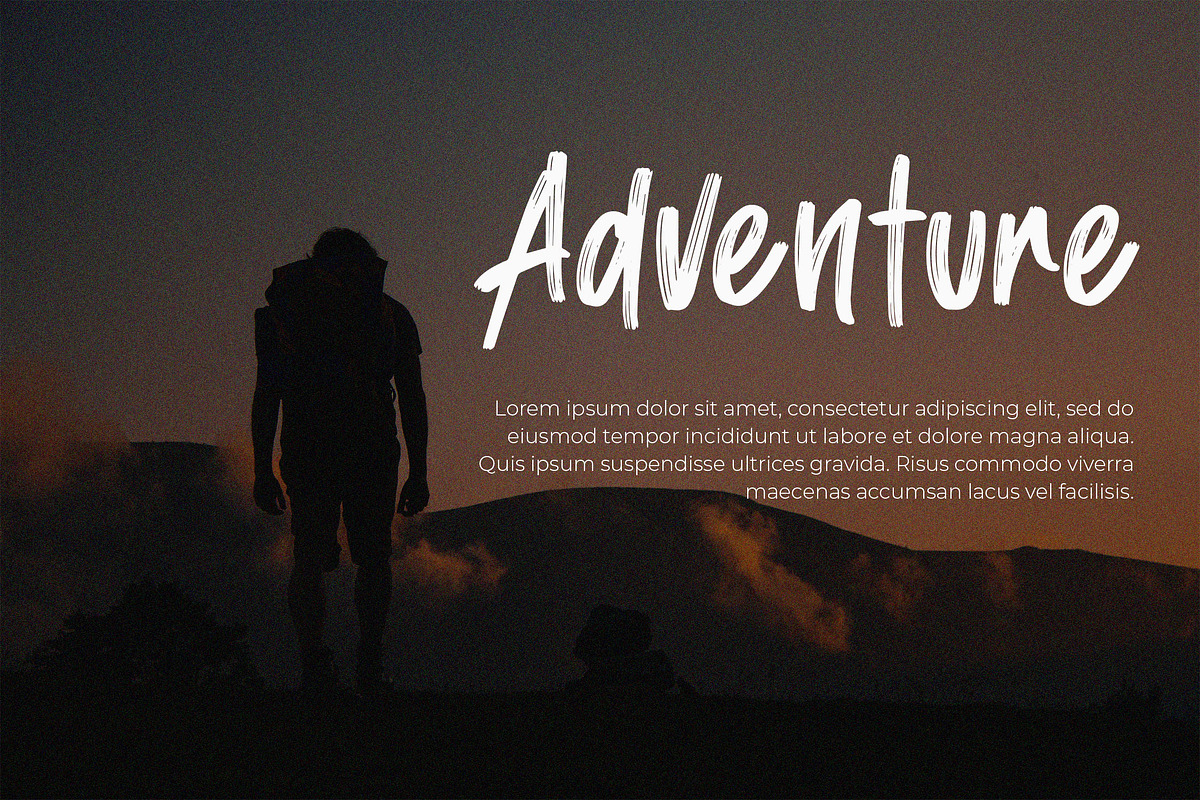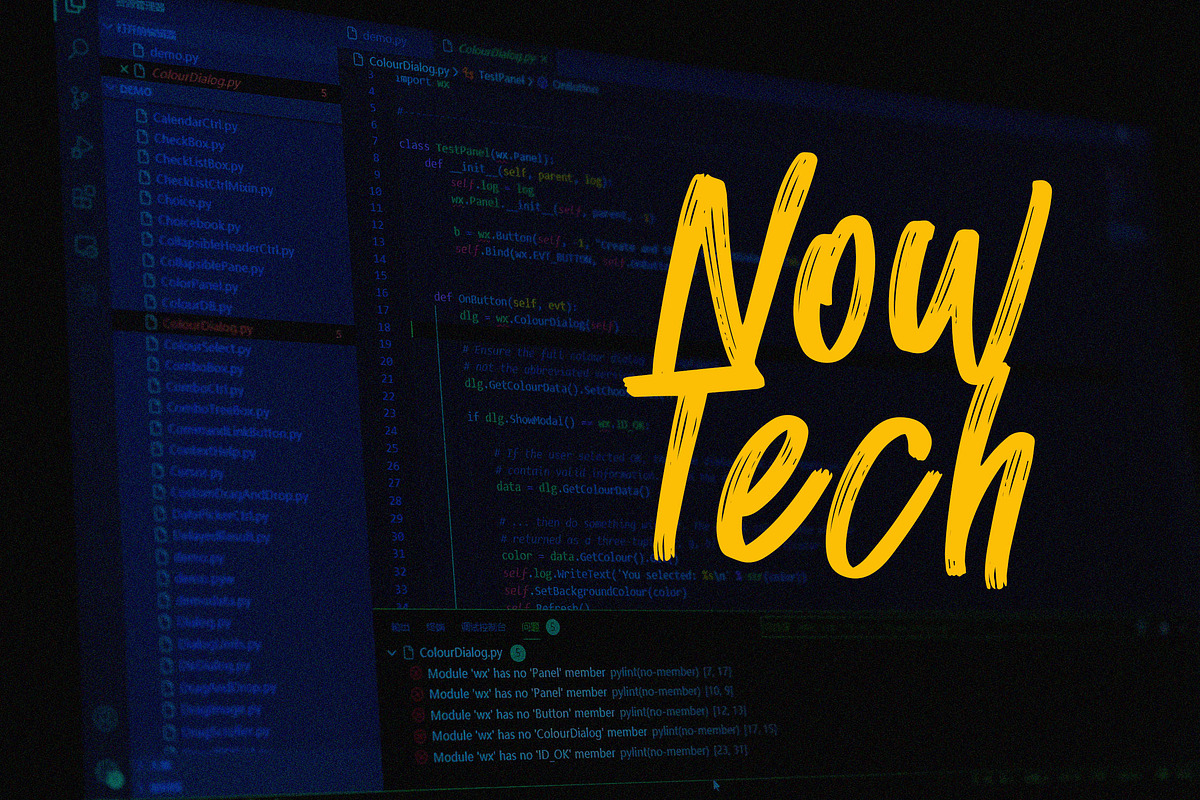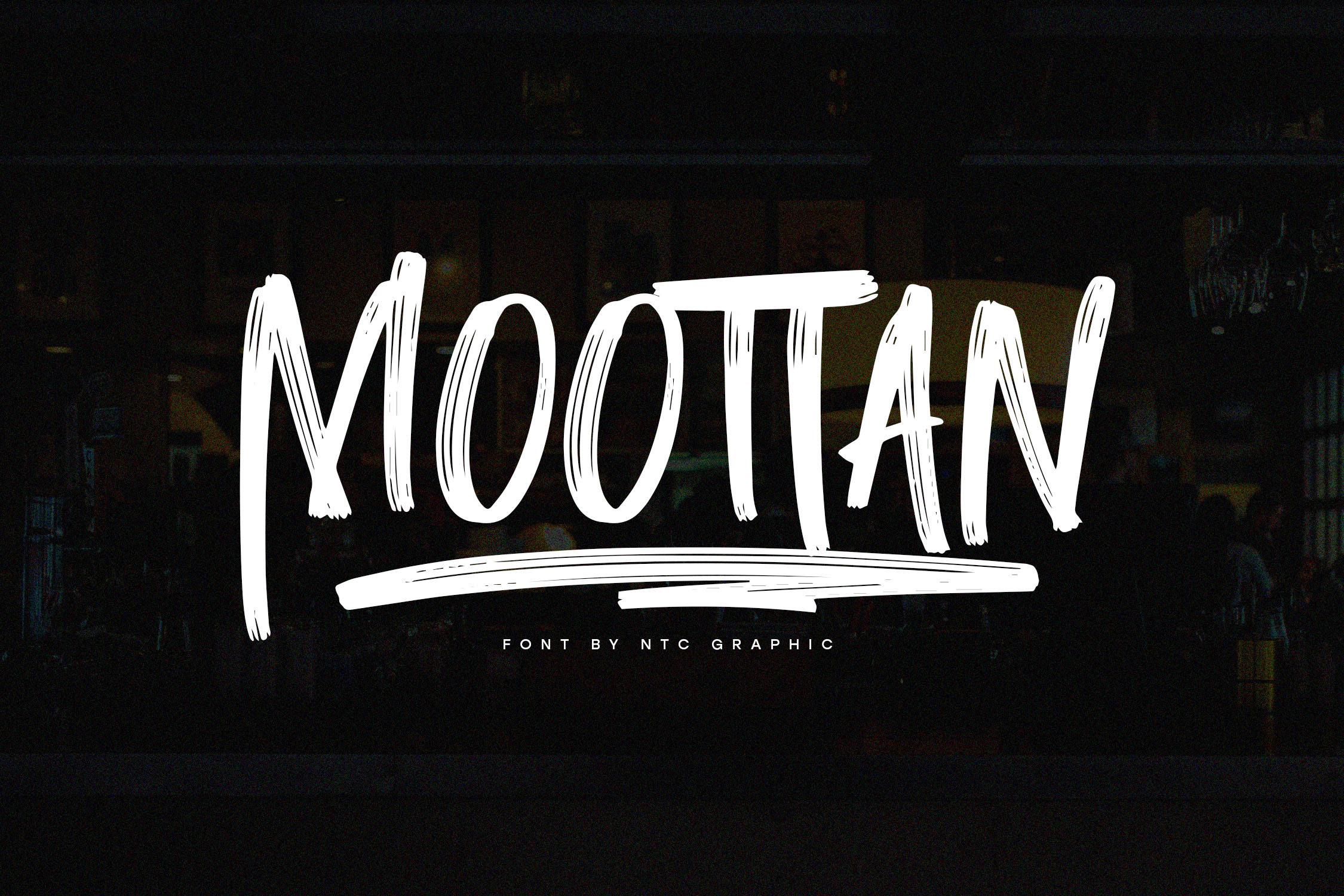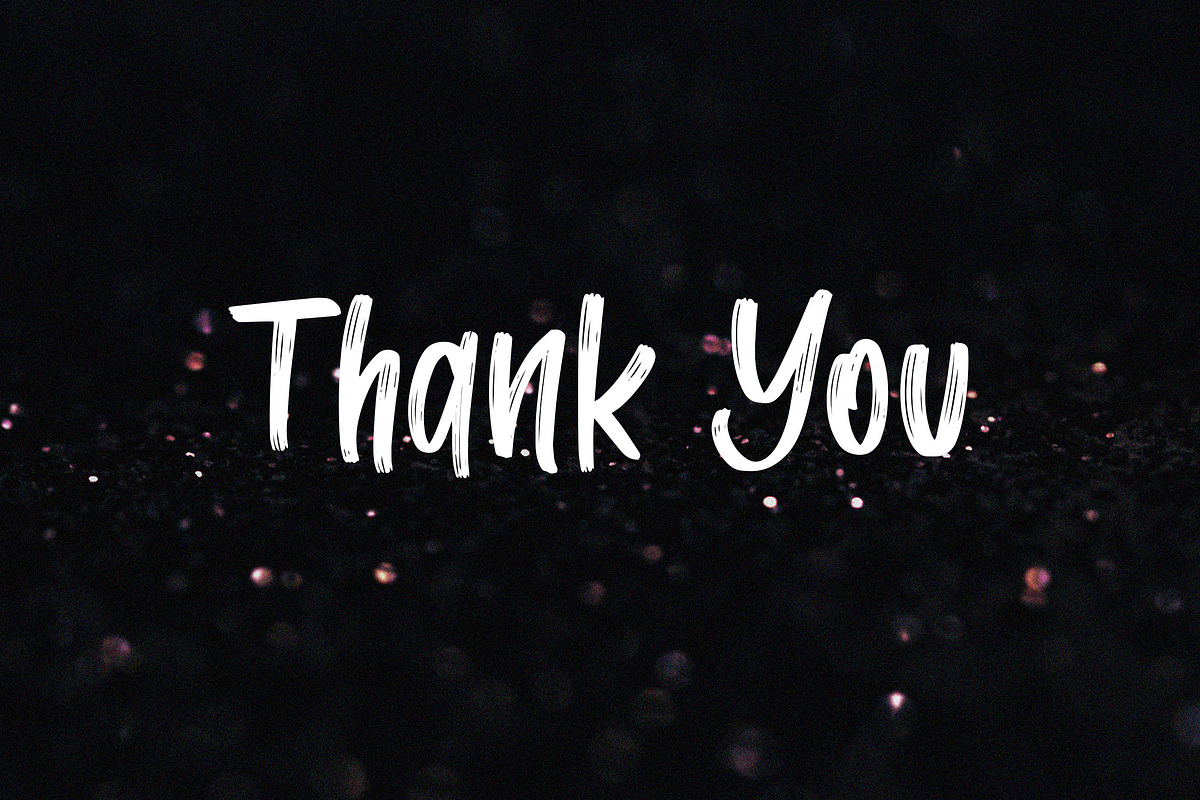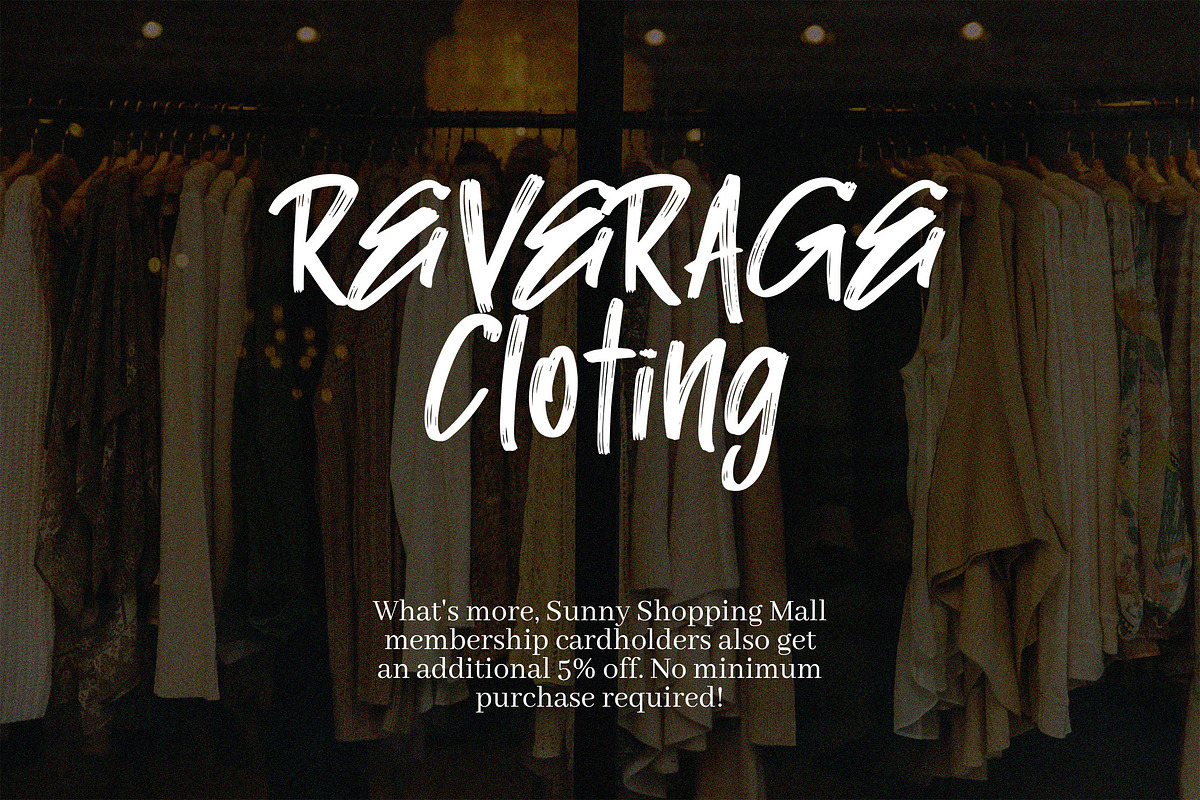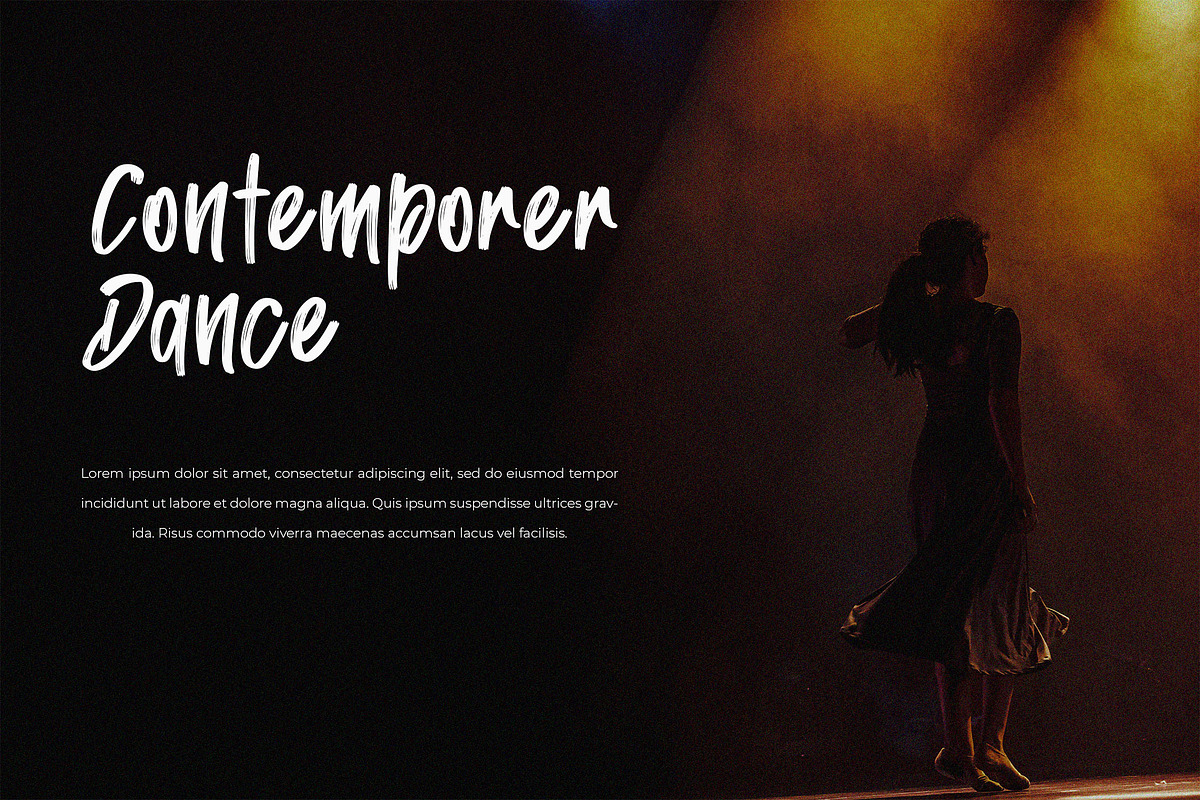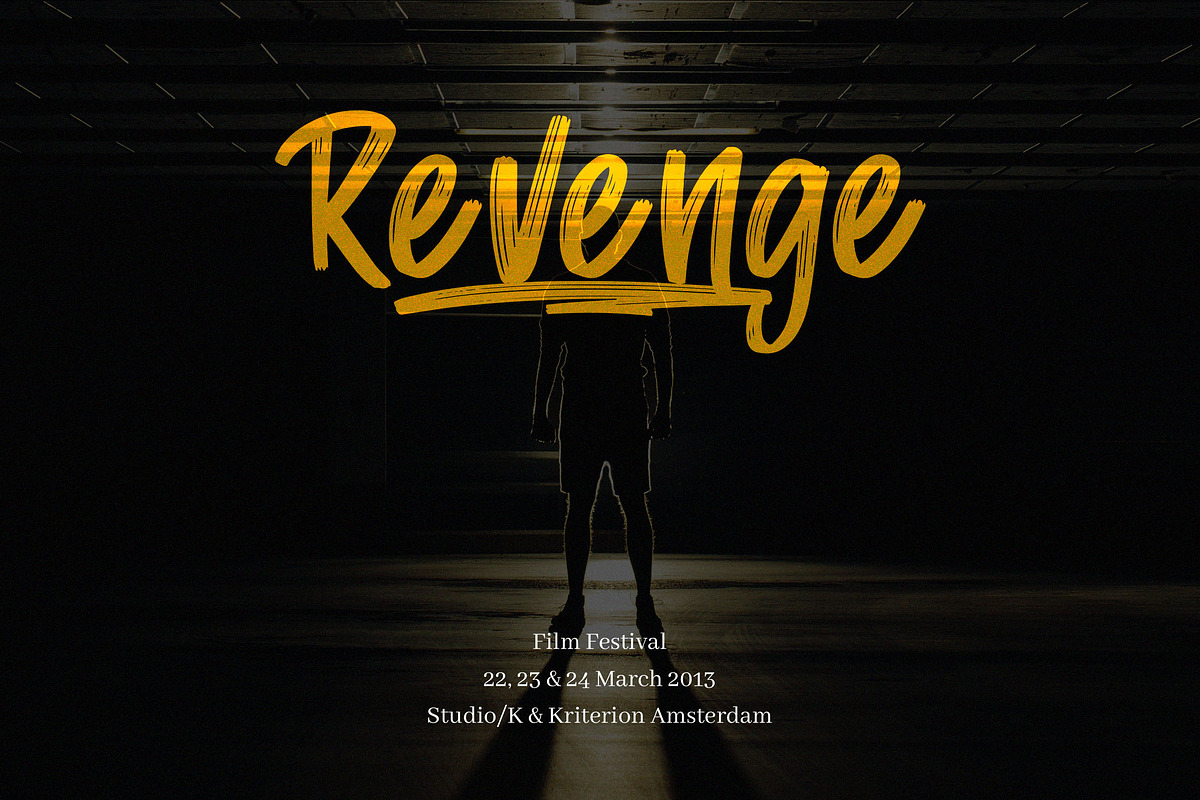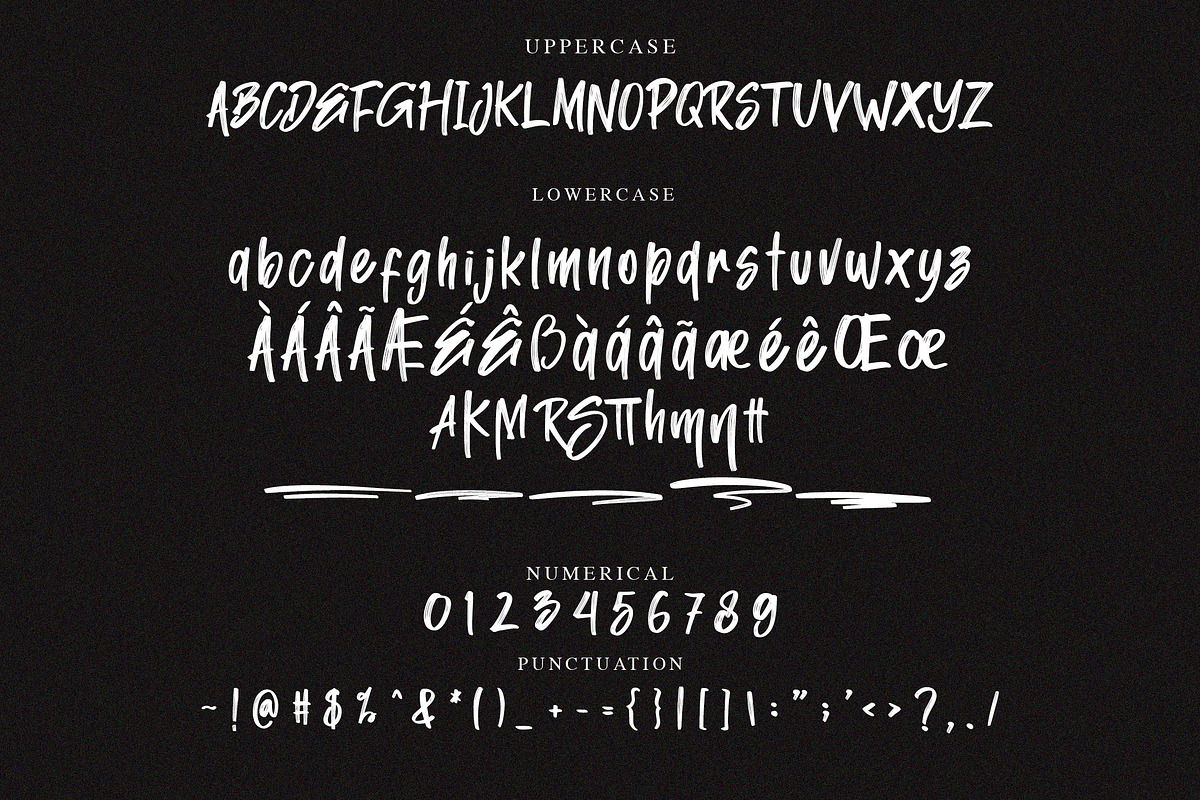
MOOTTAN Handwritten Brush Font
MOOTTAN is a beautiful brush font with handwritten style. Is a font style that is made with scratches shapes font characters are very beautiful. Can be applied to support the graphic appearance of the product to be more attractive and unique.
- Stylistic Alternate